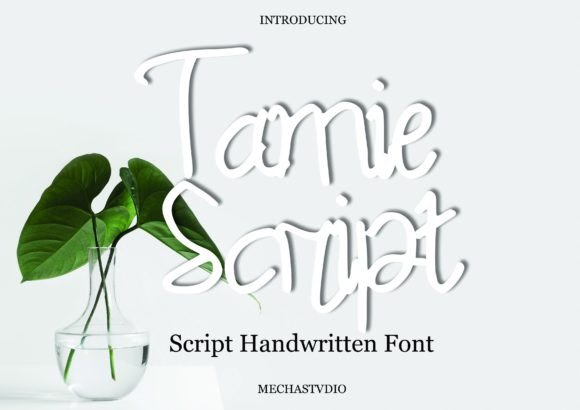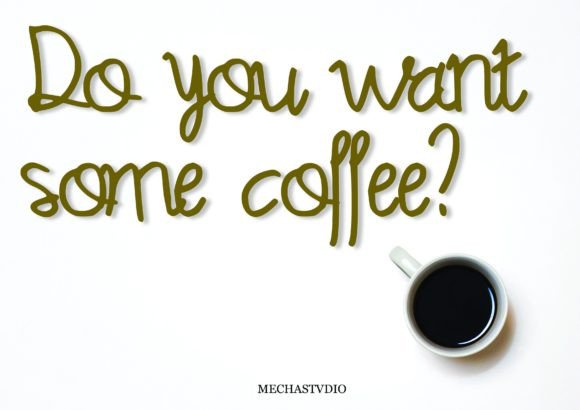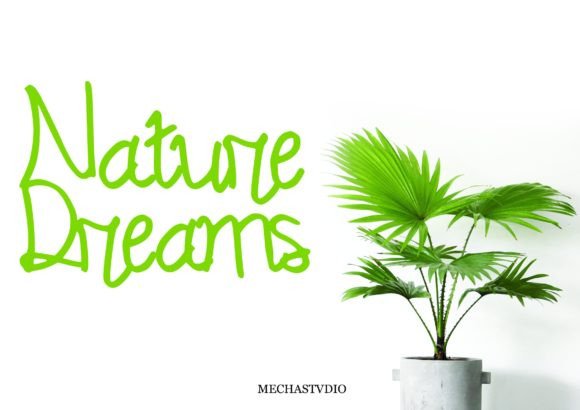
Tamie Script Font
About Tamie Script Font
Tamie Script is a sophisticated and elegant script font with a simple yet timeless design. Its graceful letterforms and smooth strokes make it a perfect choice for various design applications, including product packaging, branding projects, magazine covers, social media graphics, logotypes, and any context where you want to convey a message with sophistication and style.
The font’s simplicity is its strength, allowing it to blend seamlessly with different backgrounds and design elements. Whether you’re creating a luxurious product label, a stylish magazine cover, or a refined social media post, Tamie Script adds a touch of class and elegance to your projects.
Tamie Script’s versatility and understated beauty make it suitable for expressing words in a subtle and impactful manner. Its clean lines and balanced spacing create a harmonious visual experience, making it visually appealing and easy to read. Whether you’re aiming for a modern and minimalist aesthetic or a classic and timeless look, this font can be customized to match your design preferences.
By incorporating Tamie Script into your designs, you’re infusing them with sophistication and refinement. Its simple yet elegant style makes it a font choice that appeals to a wide audience, adding a touch of sophistication to your creative endeavors. Whether you’re a graphic designer, a business owner, or an individual working on personal projects, Tamie Script provides you with a versatile and stylish font option to enhance the visual appeal of your creations.